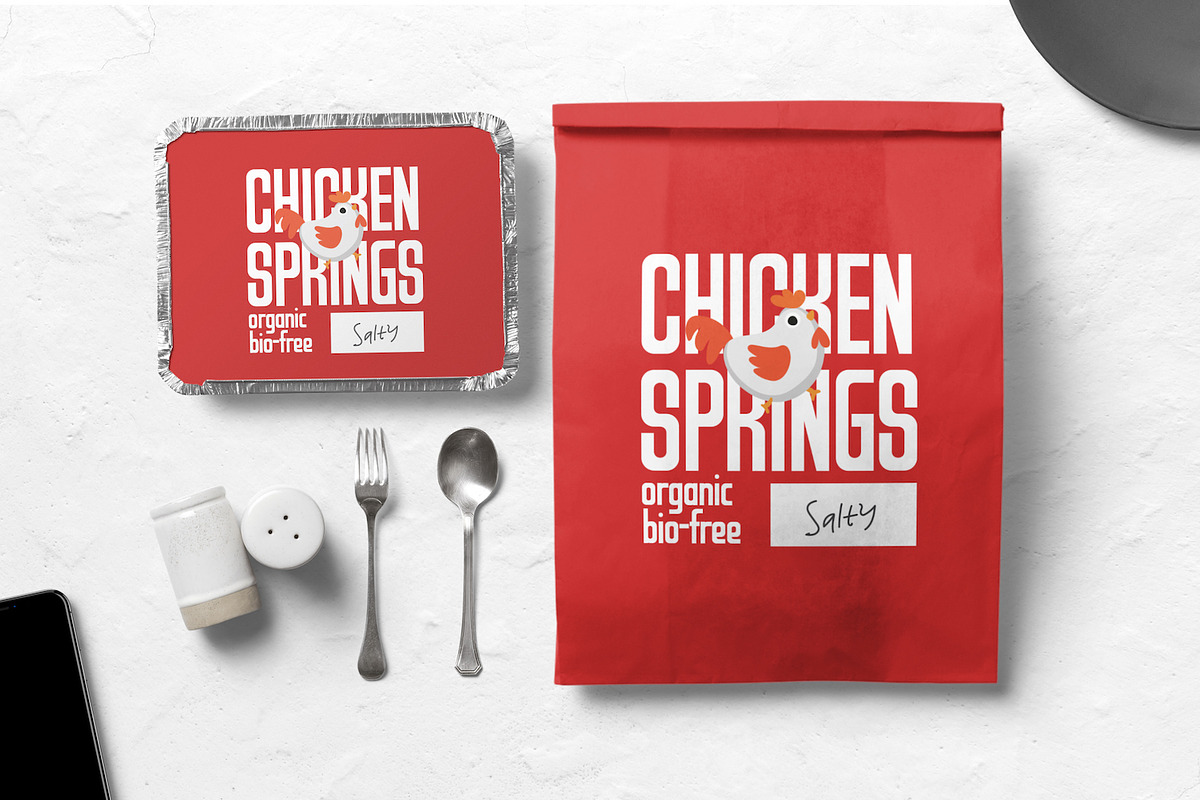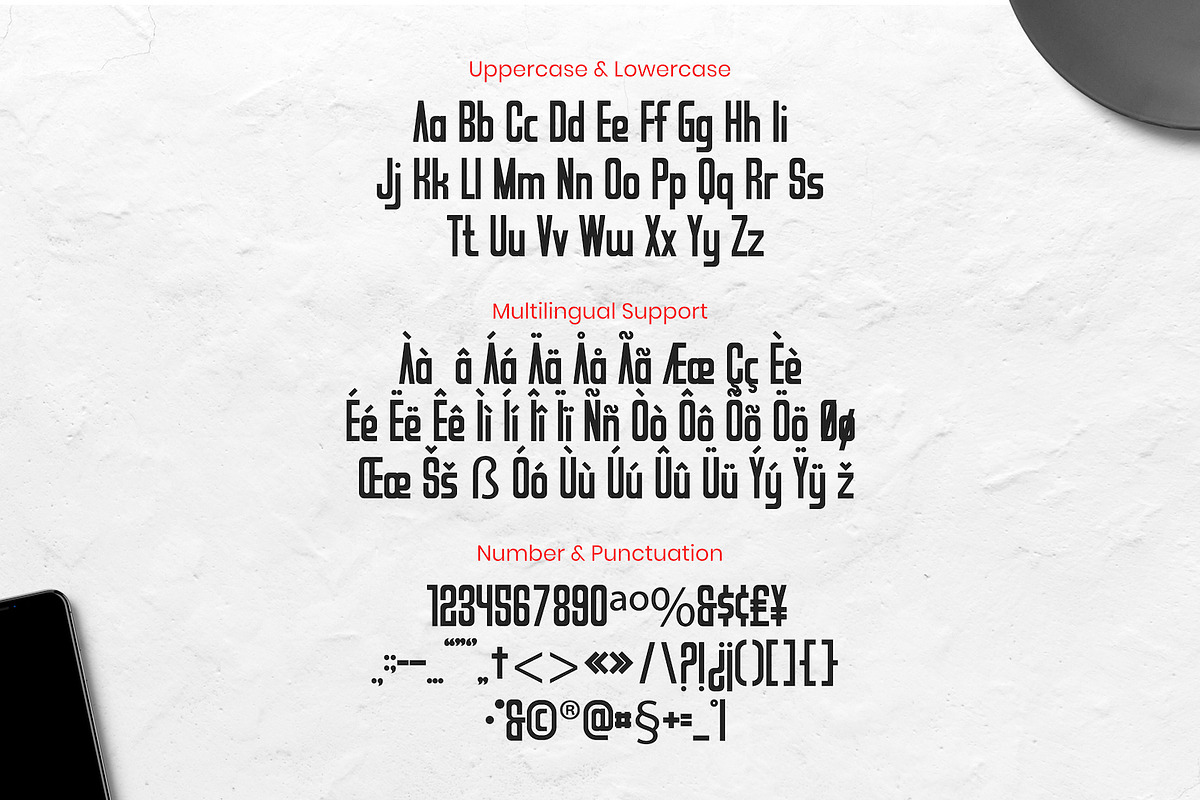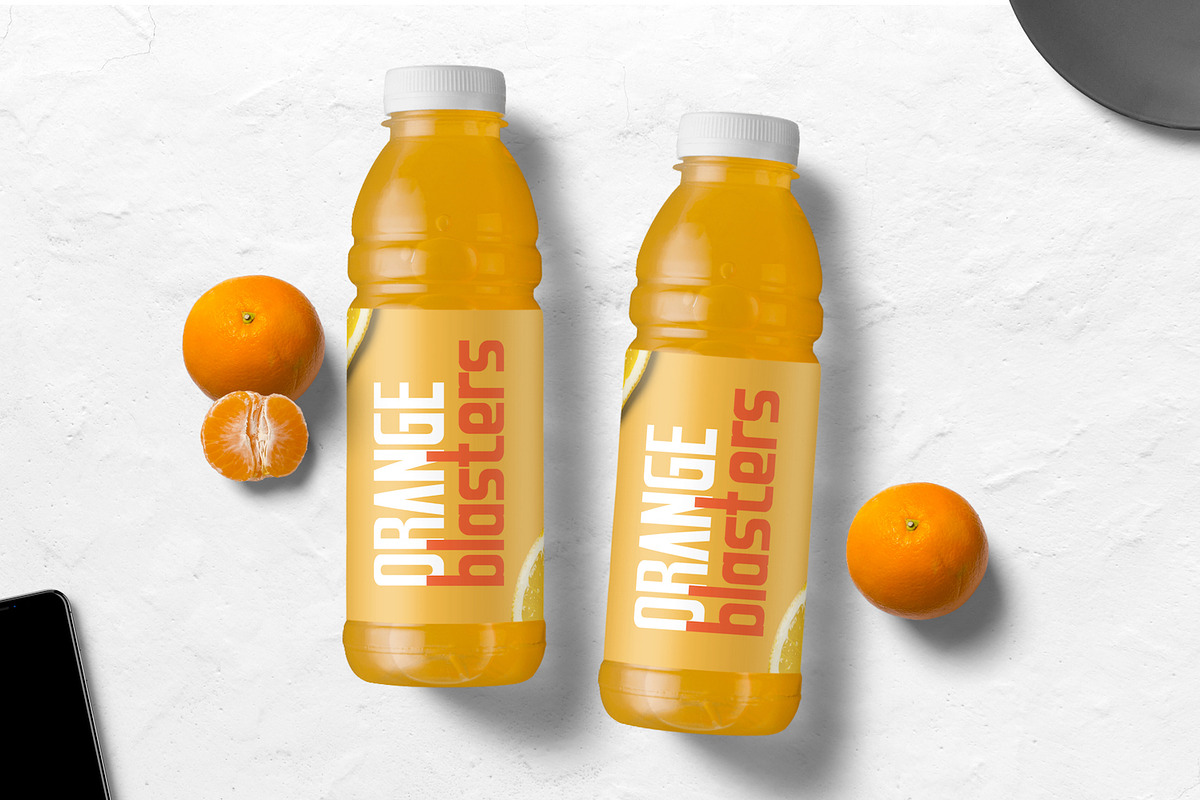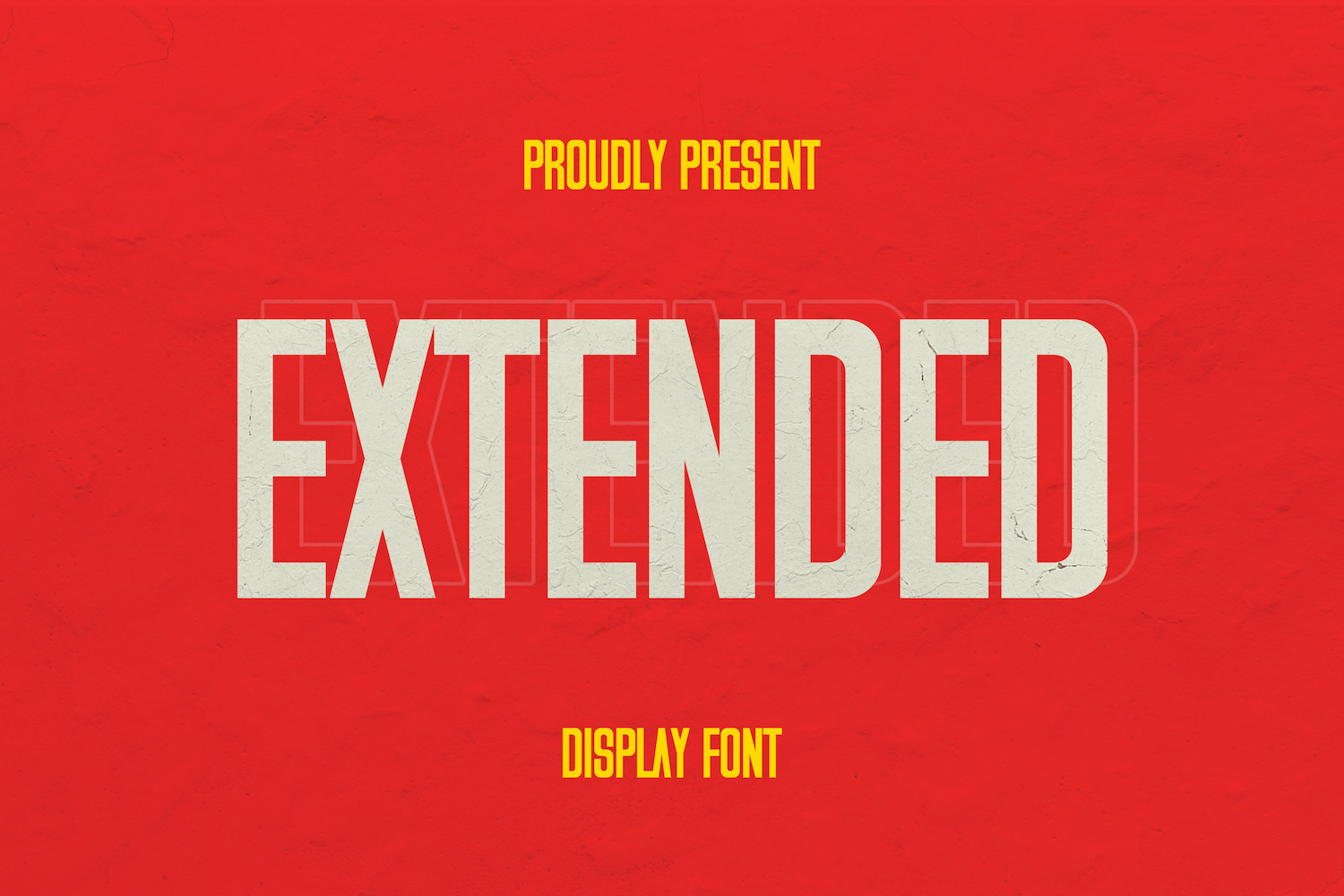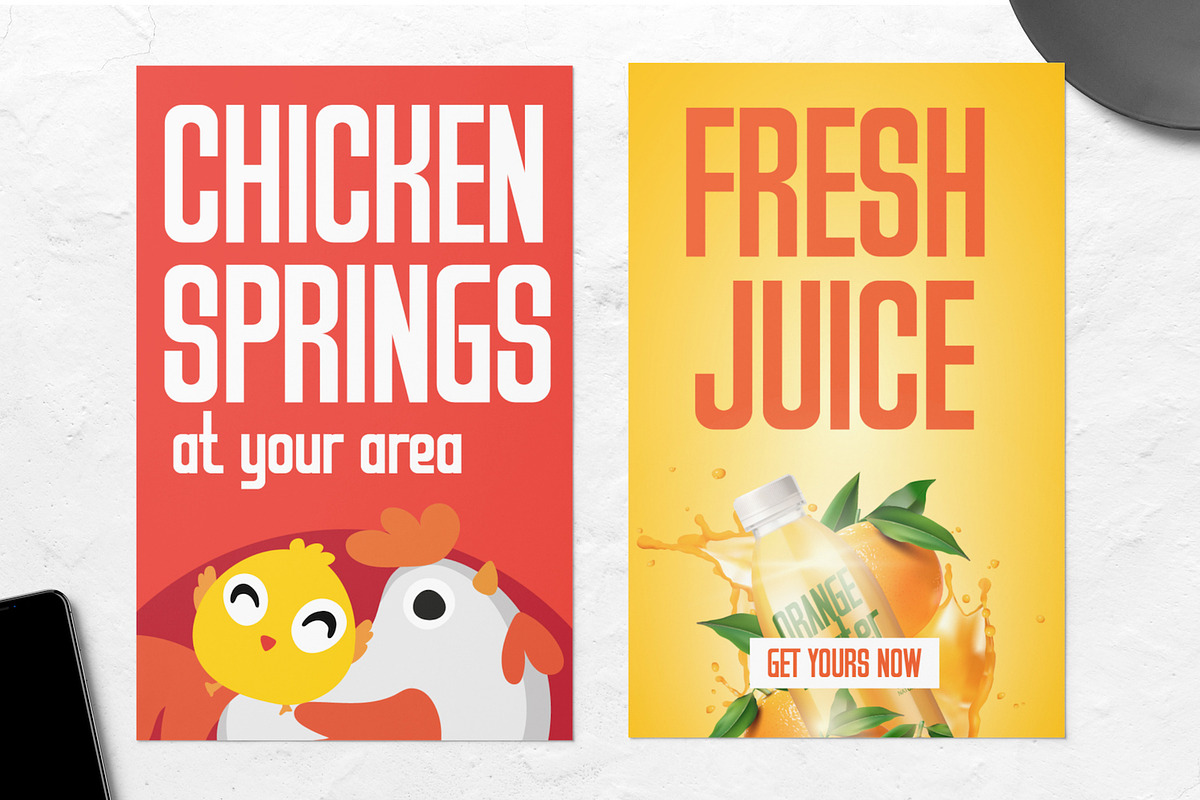
Extended - Tall Sans Serif Font
Extended is tall sans serif font with visual elegance, smooth curves and beautiful ligatures clear, making your work look true and attractive.
A very versatile font that works in both large and small sizes. This font is suitable for a wide variety of projects such as invitations, logo, branding, magazine, photography, card, product packaging, mugs, quotes, social media, wedding, poster, label, signature and more.
- Punctuation, Number and Symbol
- Multilingual Support ÀÁÂÃÄÅÆÇÈÉÊËÌÍÎÏÐÑÒÓÔÕÖØÙÚÛÜÝ